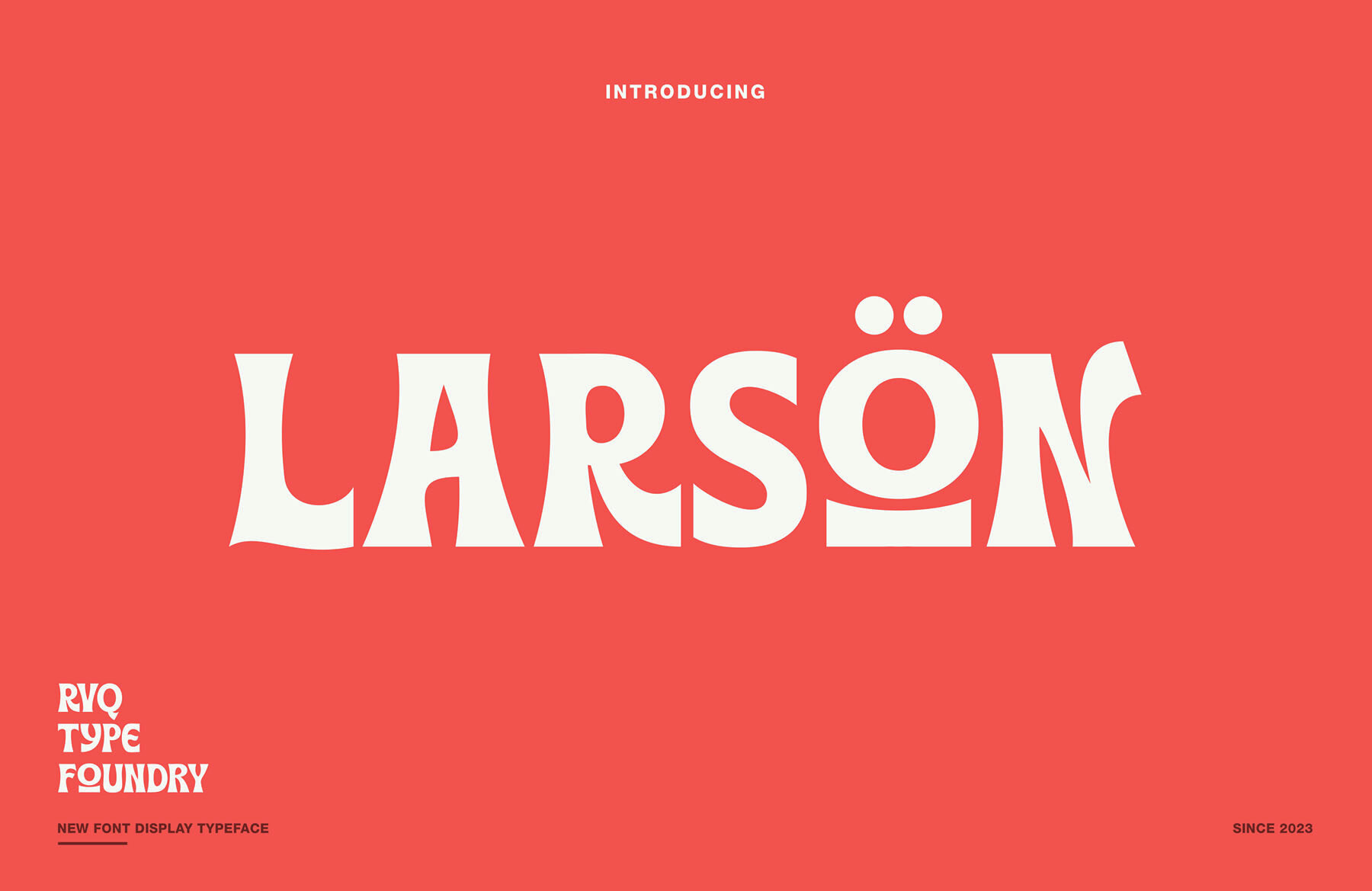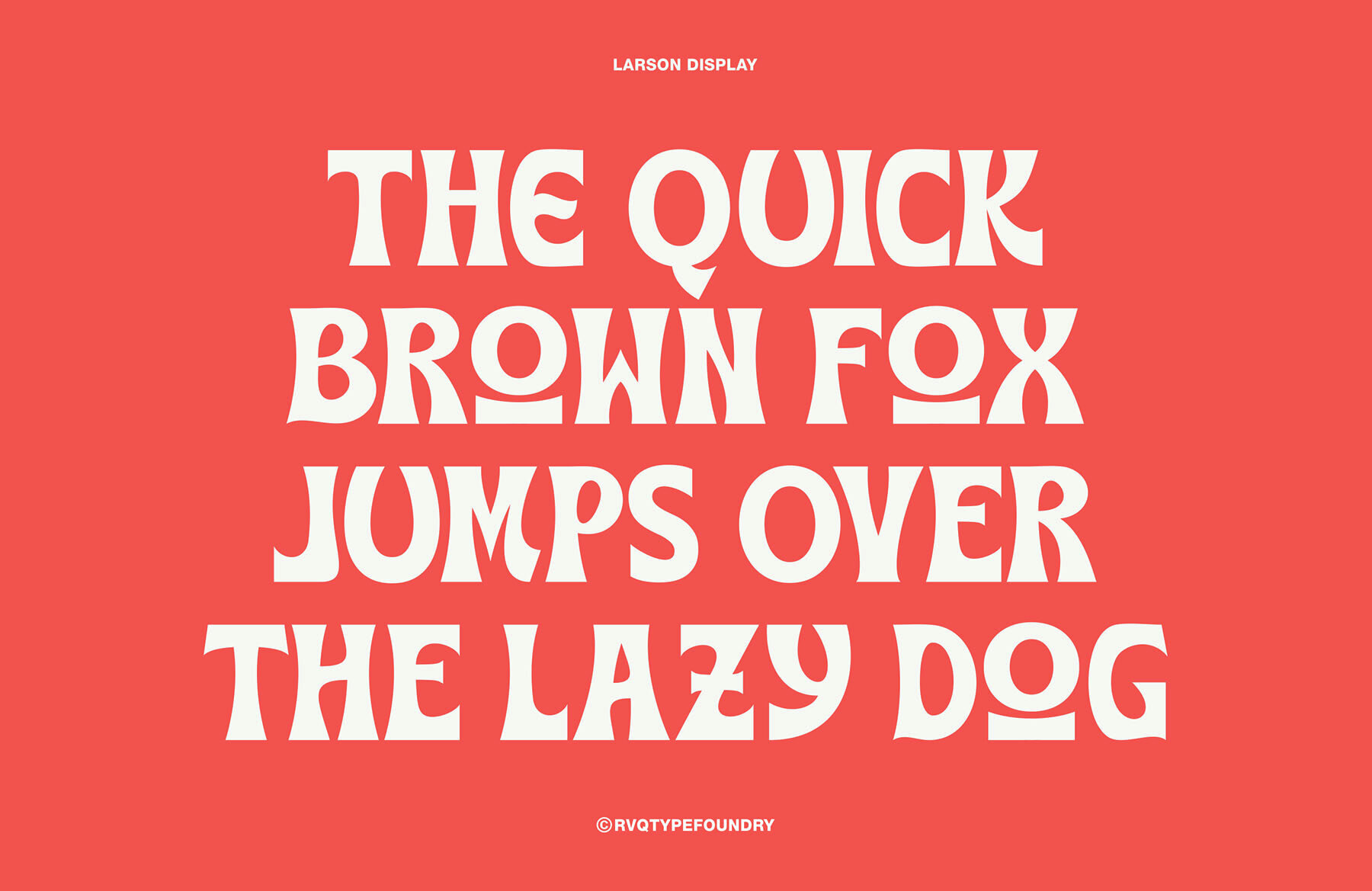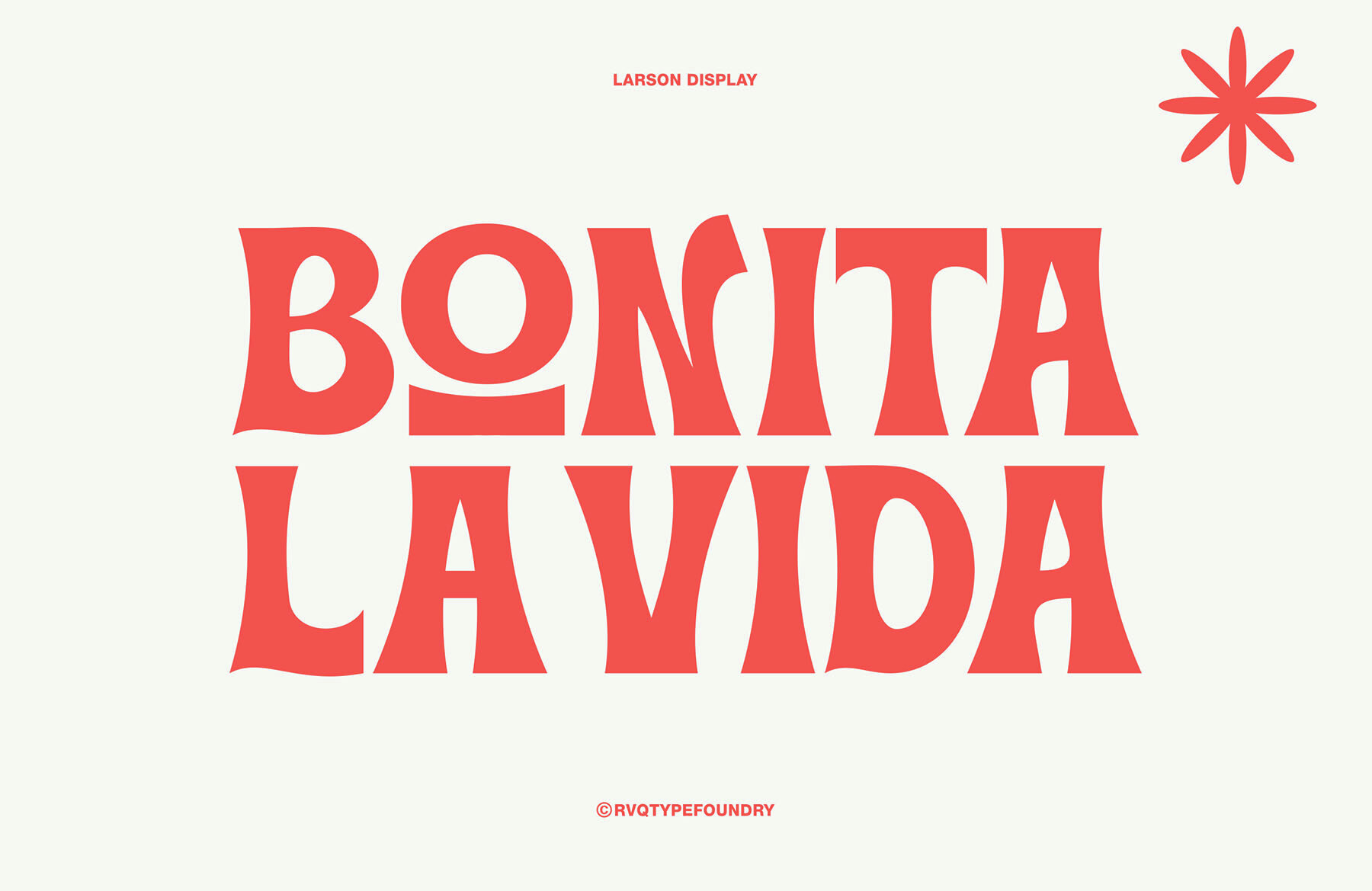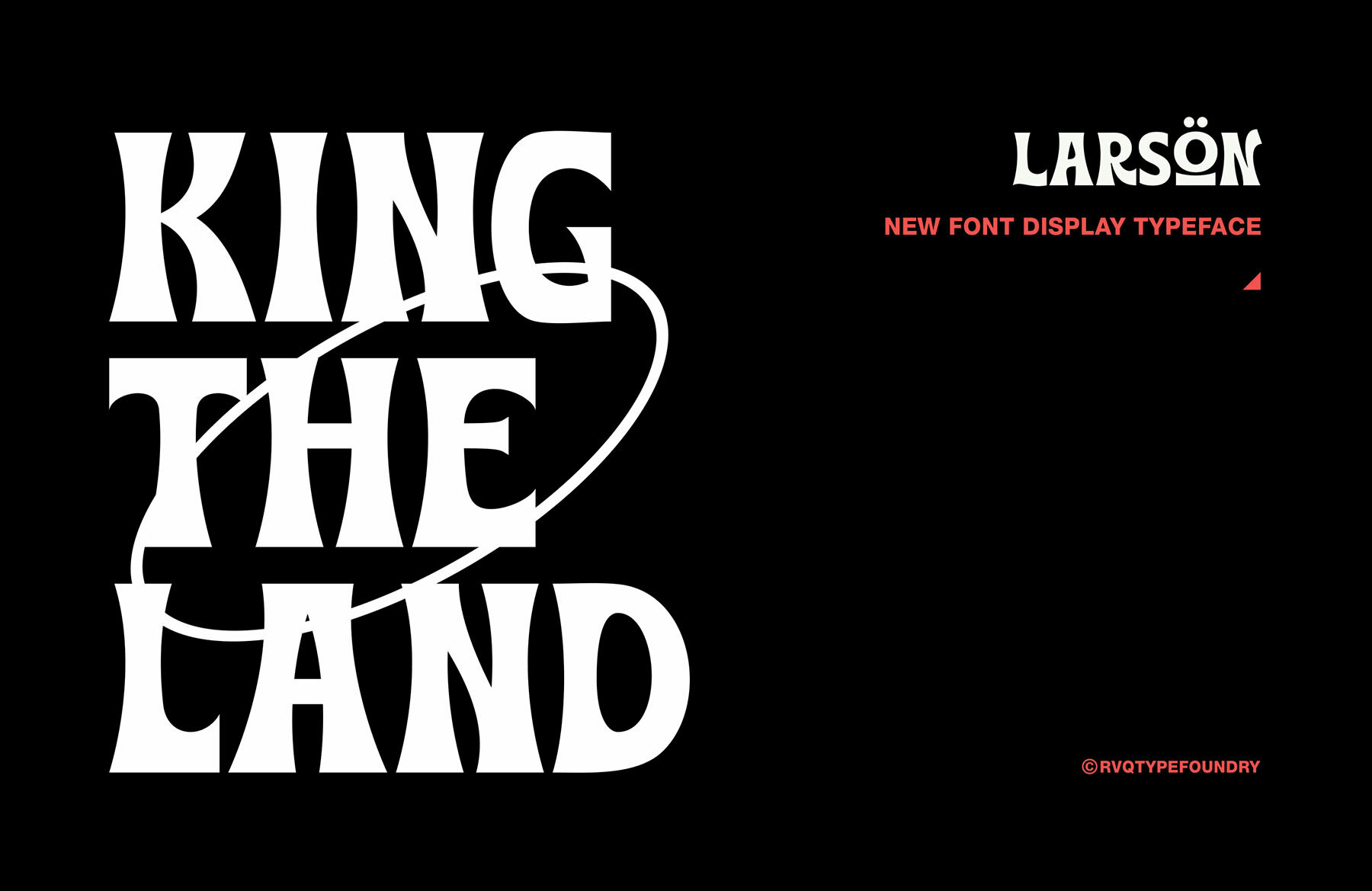
As we find ourselves strolling along the boulevards of innovative design and creative expressions, we are continuously on the lookout for cutting-edge artifacts that encompass an essence of sophistication mixed with distinct functionality. Breaking apart from the norm and capturing the very essence of this quest, we proudly introduce to you the newest addition to the world of typography - The Larson Display. This unique font, ingeniously crafted by RVQ Type Foundry, resonates with an elegant feel character set that elevates any design it adorns. For those creative futurists that revel in the enchanting world of graphic design, The Larson Display presents an exceptional tool that embodies ingenuity and aesthetic charm. With its incorporation of both uppercase and lowercase letters, it fosters a distinct style, amalgamating versatility with the grace. Thus, it proves to be a remarkable asset for marketing firms aiming to create influential and memorable campaigns. But this is just the tip of the iceberg when it comes to the complete Larson Display experience.The Larson Display: A Groundbreaking Typeface for Creative Futurists
Key features of The Larson Display: